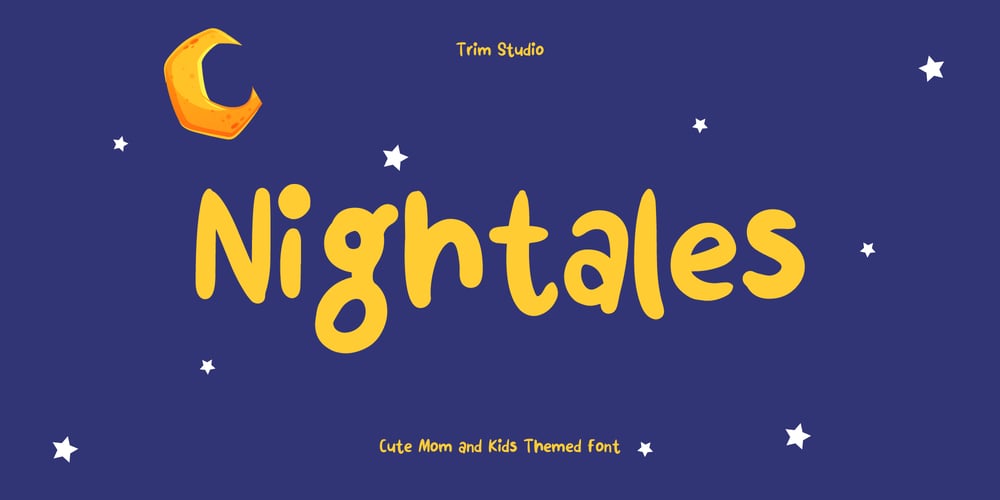
Nightales Font Family was designed by Deri Kurnia and published by Trim Studio. Nightales contains 1 styles and family package options. Introducing Nightales a simple, bold and light font style perfect for kids’ books! With a playful and rounded design, this font is both whimsical and fun, making it perfect for capturing the imagination of young readers. The brush pressure adds a touch of creativity and charm, while still being easy to read and understand.The bold and light variations provide versatility for different design elements, and the rounded edges make it safe and friendly for kids.Let Nightales bring joy and excitement to your next kids’ book project!even so contains All Standard glyphs and punctuationsThank you for let us be your design partner, If you have any questions please don’t hesitate to drop me a message